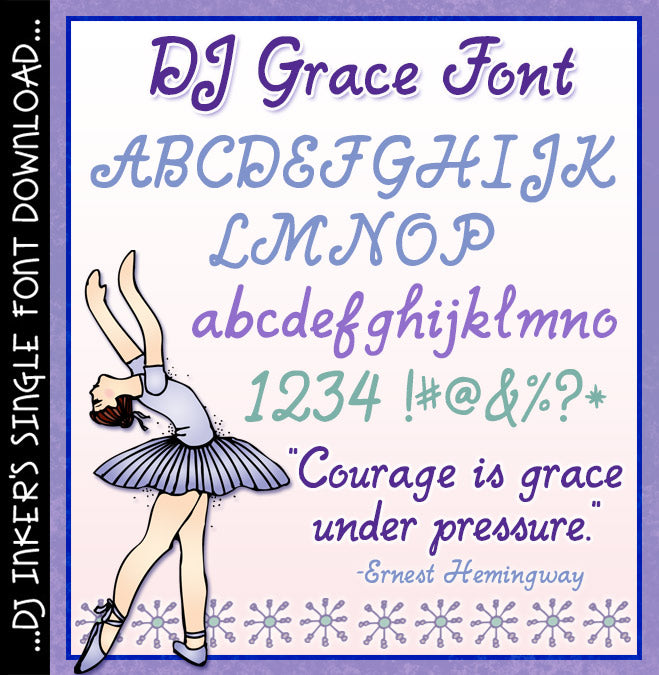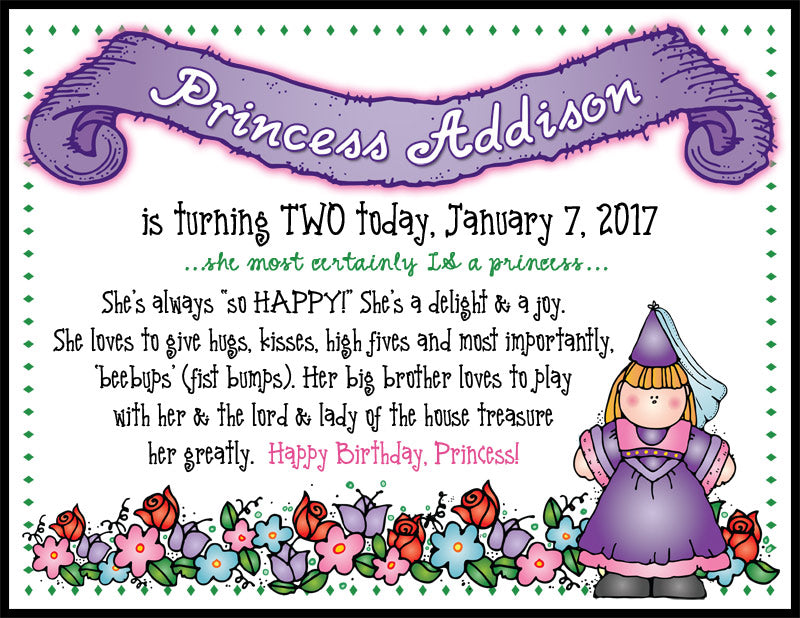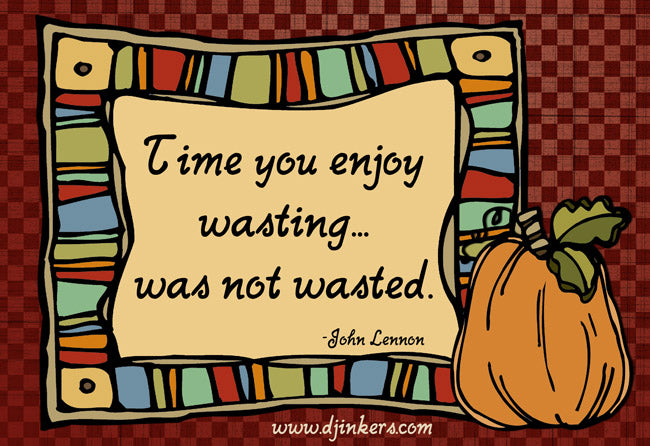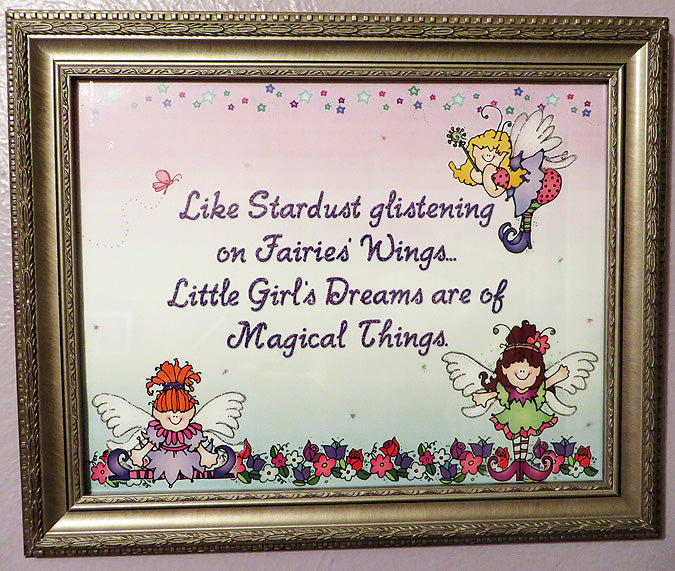
DJ Grace Font Download
'DJ Grace' is a beautiful combination of bold lettering with
classy curves. Add this stylish script font to your headlines, journaling,
scrapbooks, notes, letter writing and more.
Choose DJ Grace for an easy elegance on your creations. (djdf66)